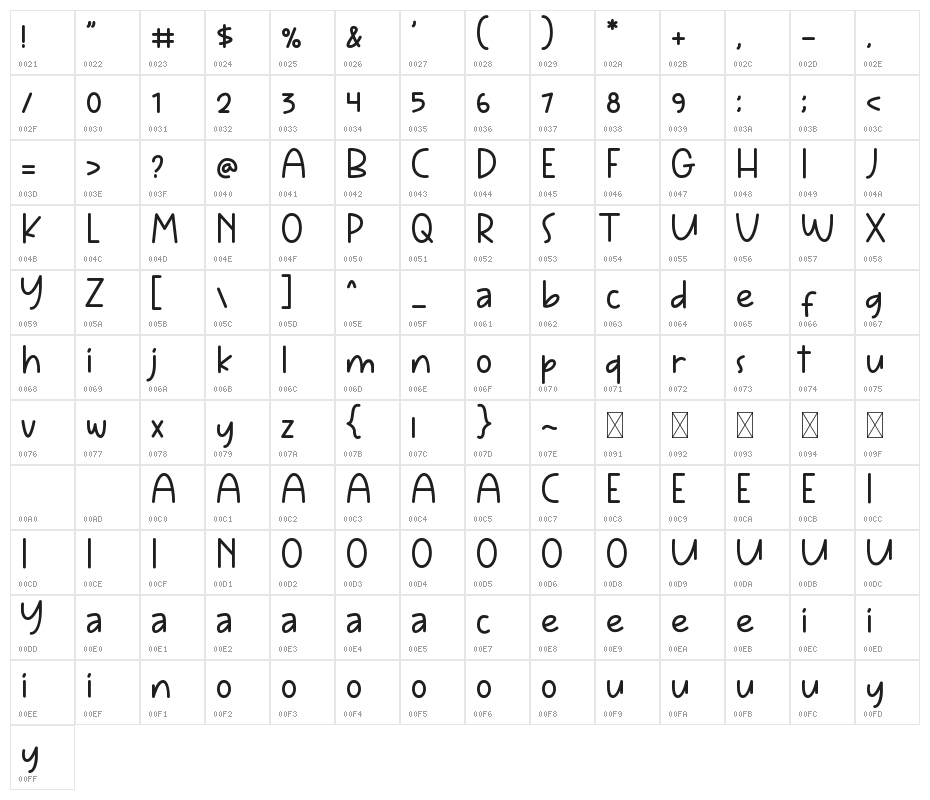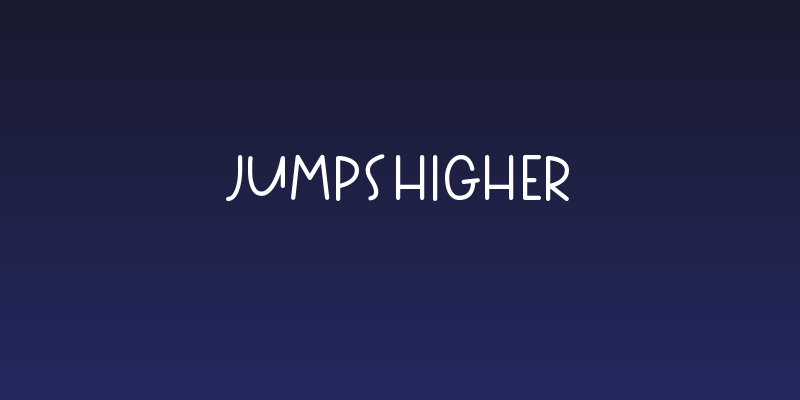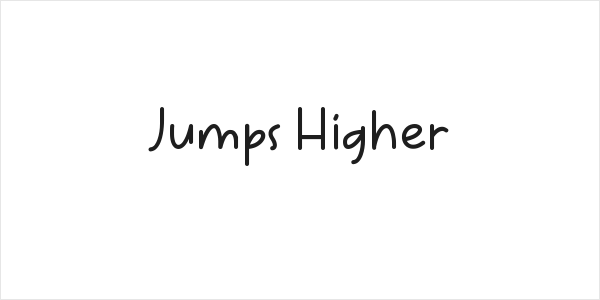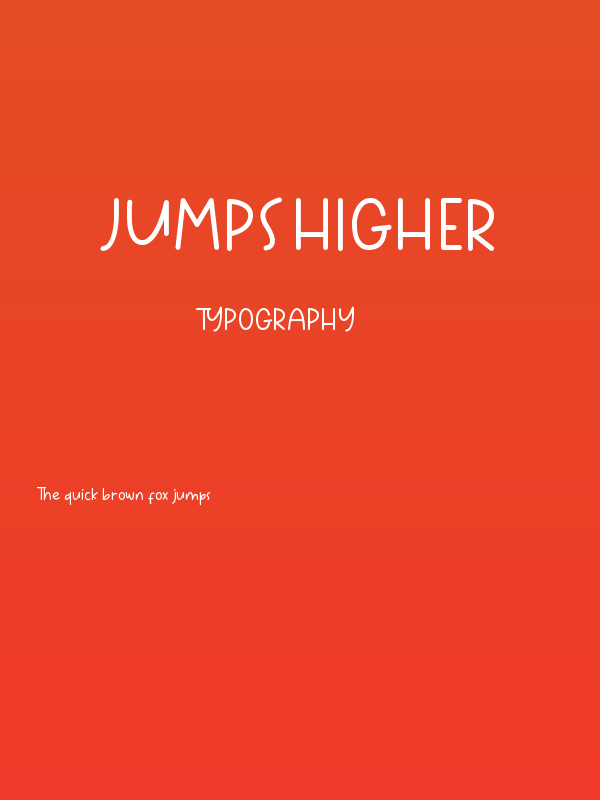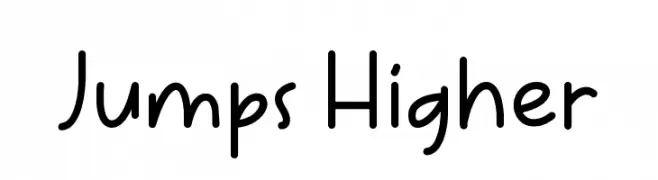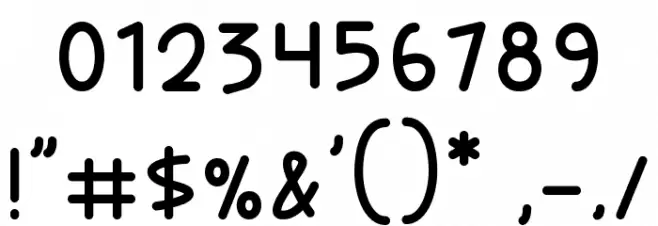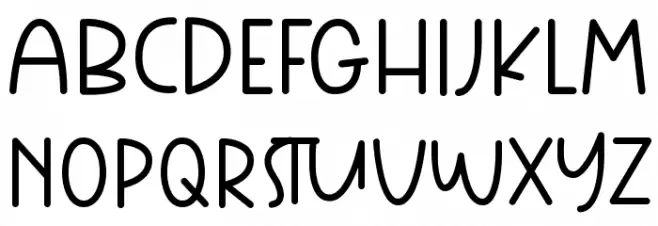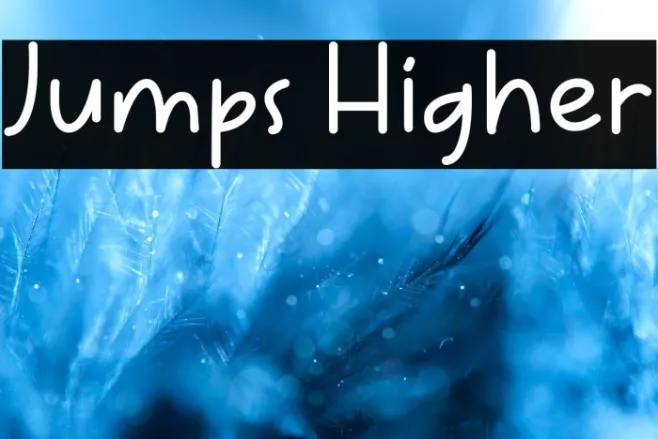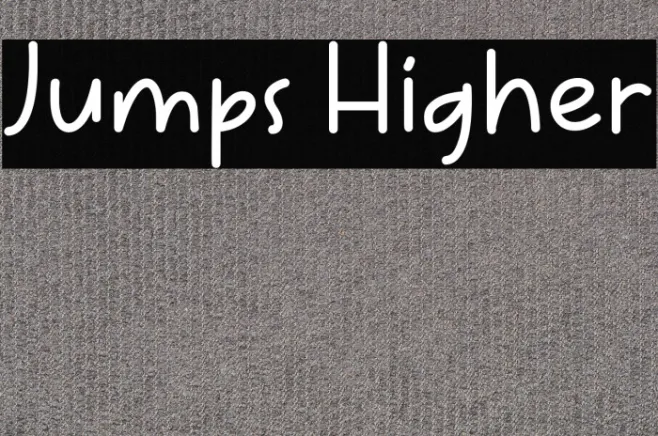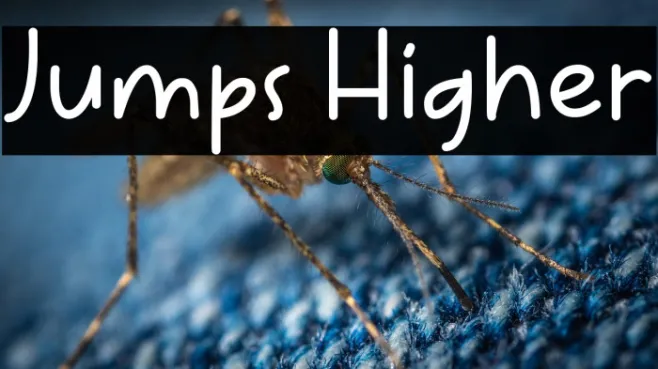
Jumps Higher Font
Jumps Higher Description
This playful and whimsical font features a handwritten style with smooth, rounded edges and a casual appearance. The characters are slightly irregular, giving them a friendly and approachable feel. The uppercase letters are tall and narrow, while the lowercase letters maintain a consistent height, contributing to a cohesive look. Numbers and special characters are designed to match the overall style, ensuring versatility across different uses. The font's simplicity and charm make it suitable for projects that require a personal touch or a fun, informal vibe.
| Use Case | Headlines, Informal text, Branding |
| Proposed Projects | Ideal for children's books, greeting cards, playful branding, and informal invitations. |